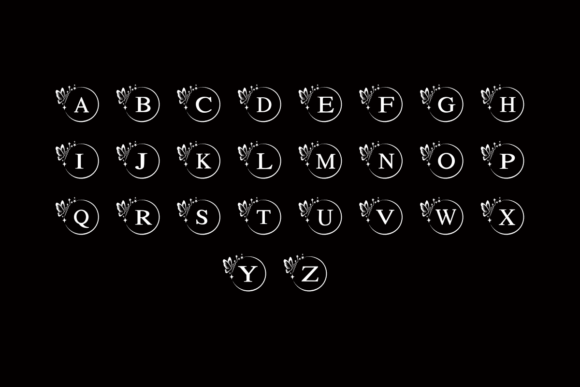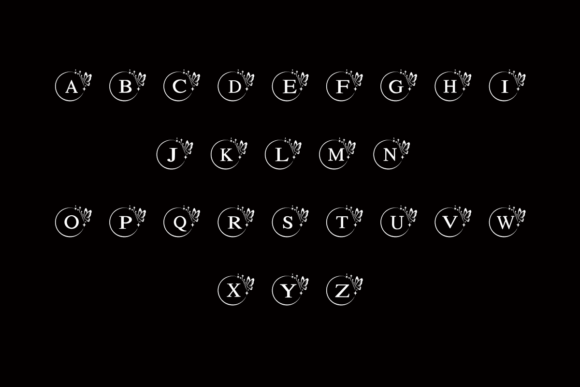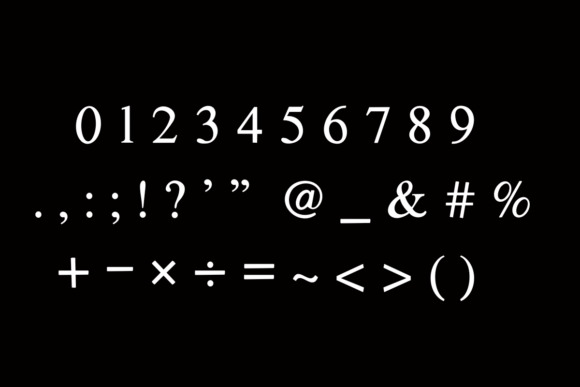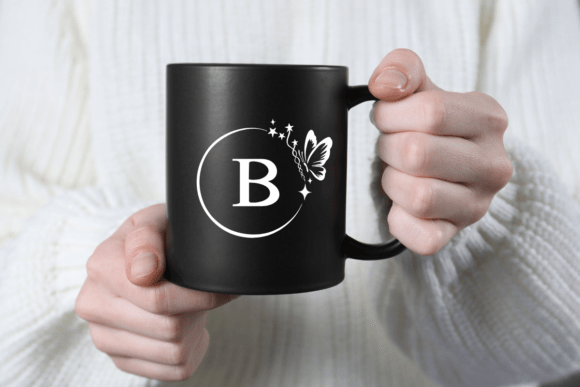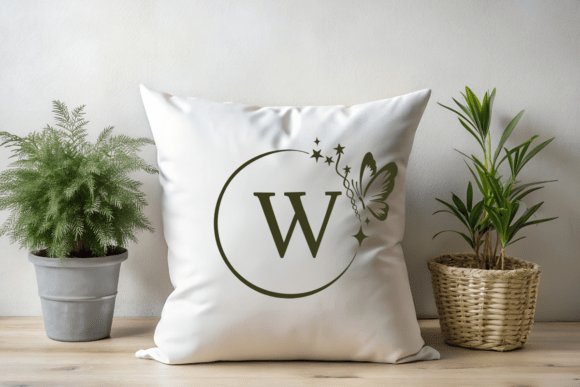
Introduction to Butterfly Magic Font
Butterfly Magic is a cool decorative font.
Key Features of Butterfly Magic Font
Why Choose Butterfly Magic Font?
Butterfly Magic Font offers exceptional quality and versatility, making it a valuable addition to your design toolkit. Whether you’re creating for personal projects or commercial use, Butterfly Magic Font delivers professional results.